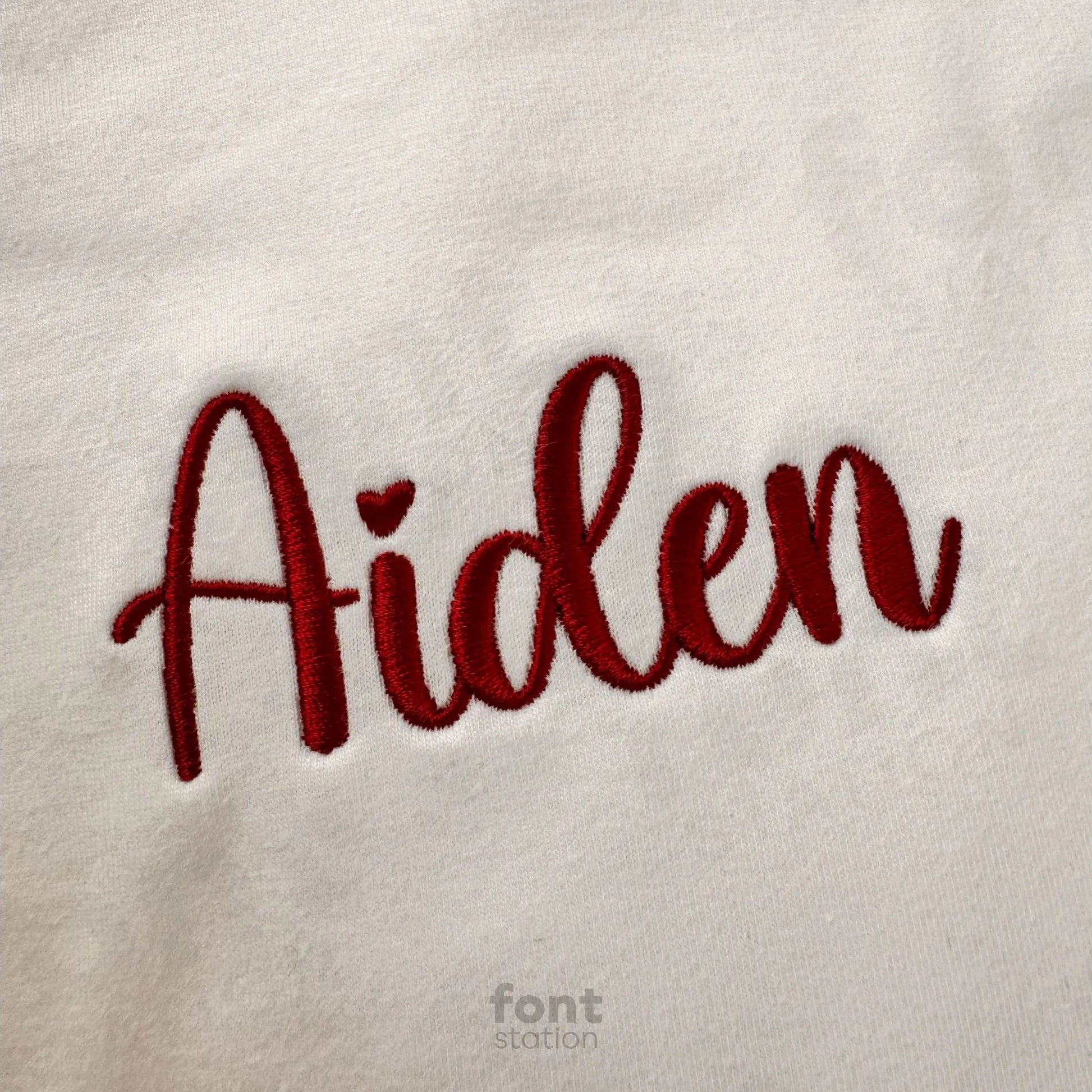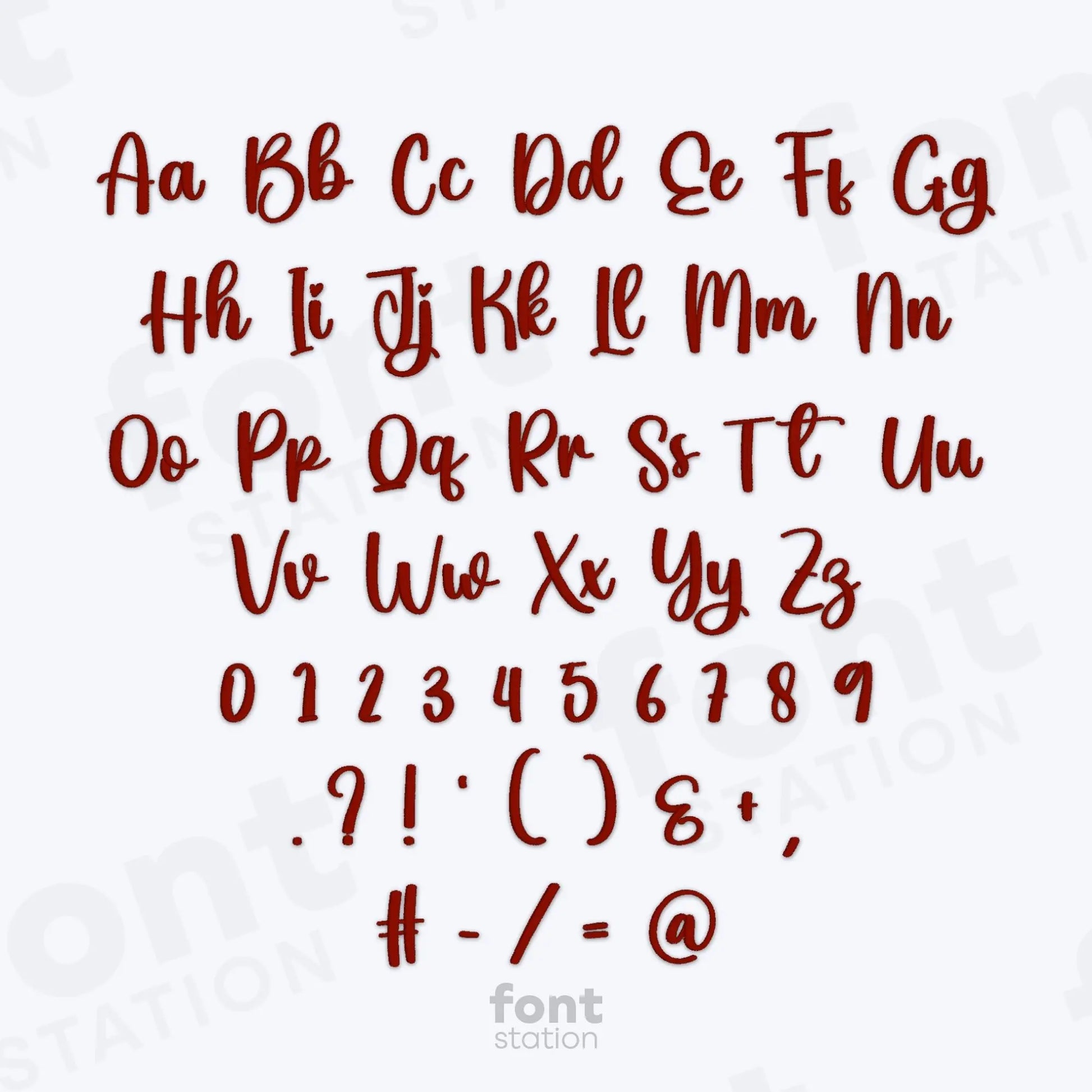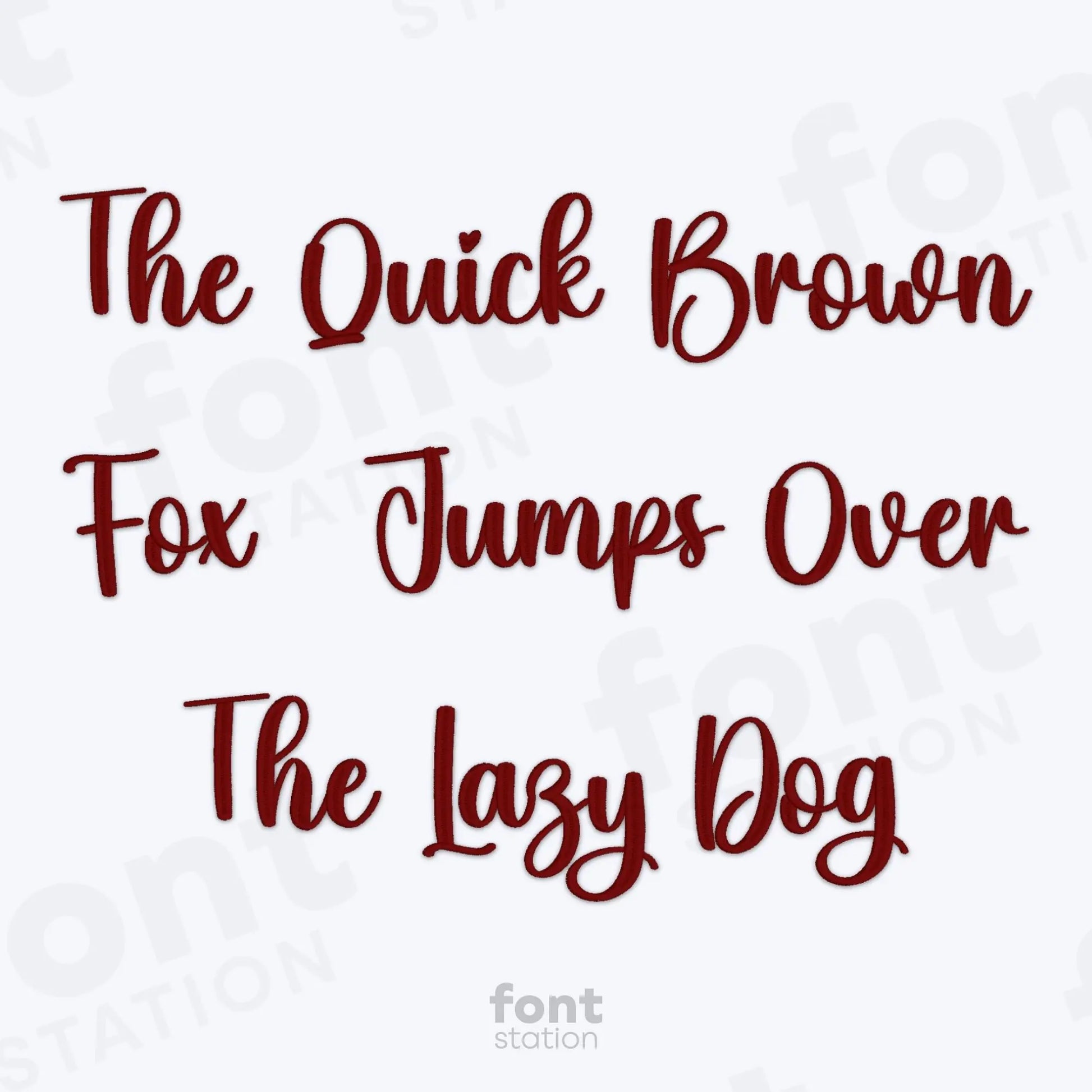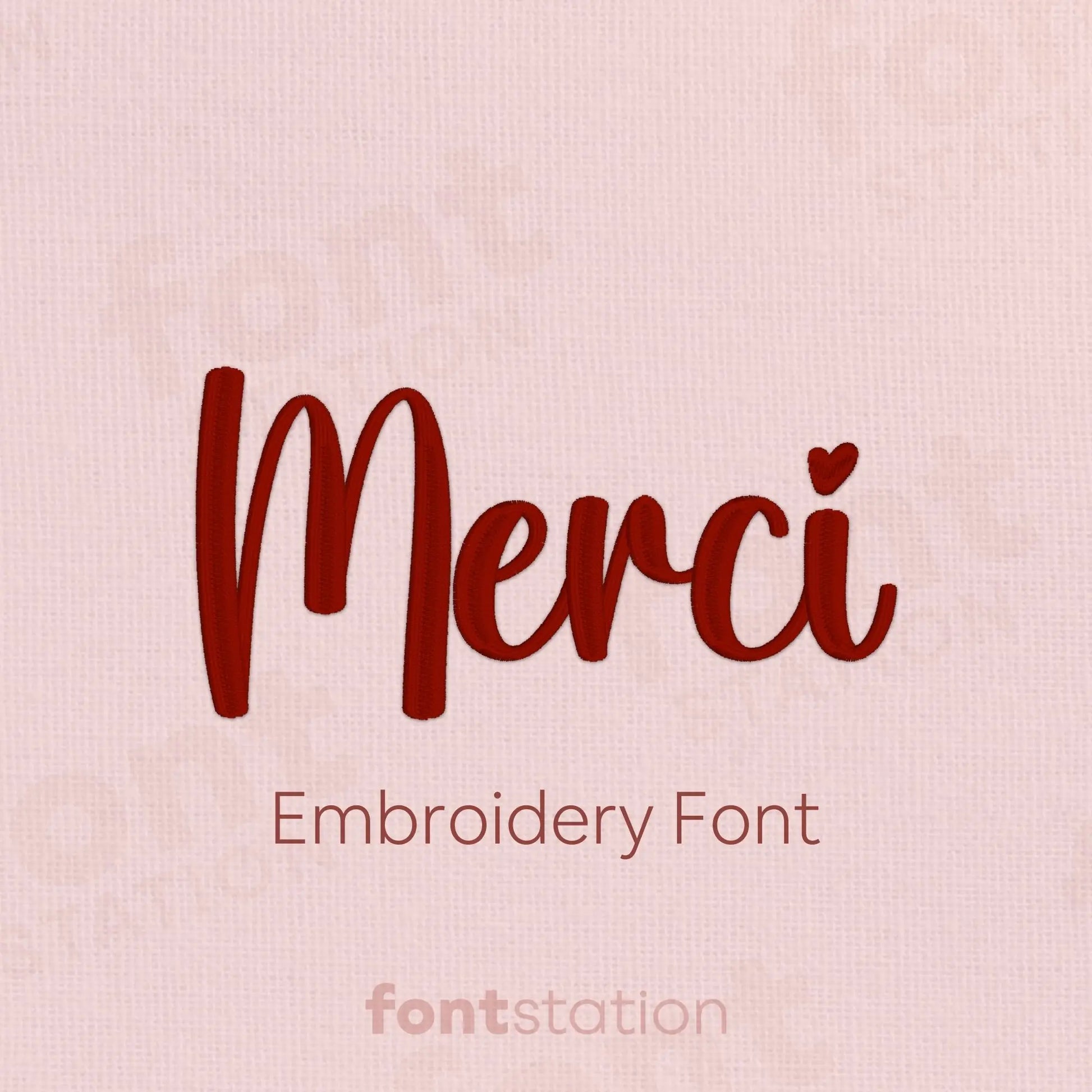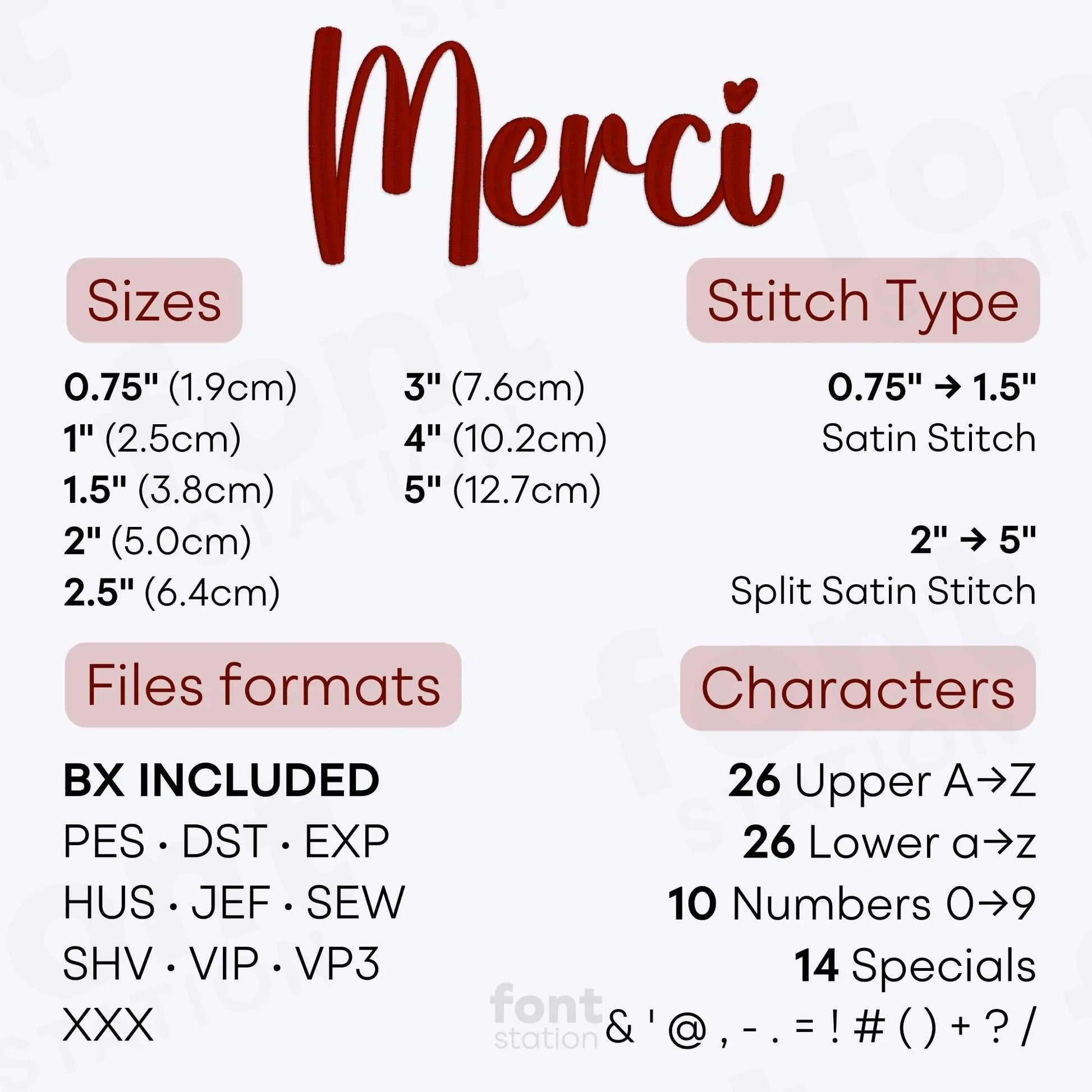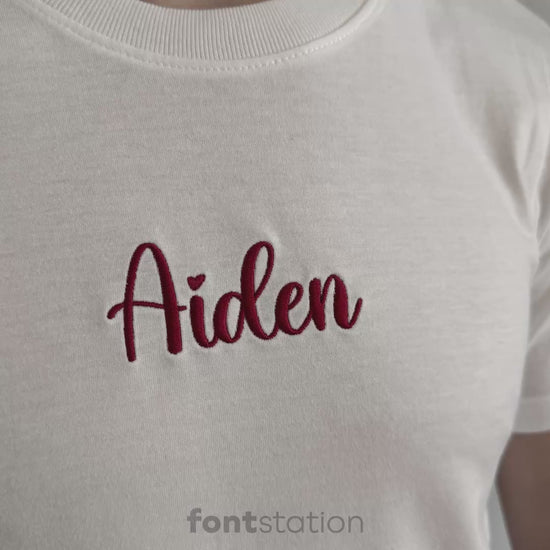
Merci Embroidery Font
Introducing our Merci embroidery font, a cute script alphabet with heart-inspired letters that stitch beautifully on your embroidery machine. Perfect for Valentine designs and any sweet project.
About the Merci Embroidery Font
Our Merci embroidery font brings a cute, romantic script style with heart details to your embroidery projects.
This charming machine embroidery font features a flowing script alphabet with delicate letters inspired by love, Valentine themes, and heartfelt designs. Perfect for romantic gifts, baby items, custom names, and sweet embroidery designs, it adds a soft, playful and loving touch to every project.